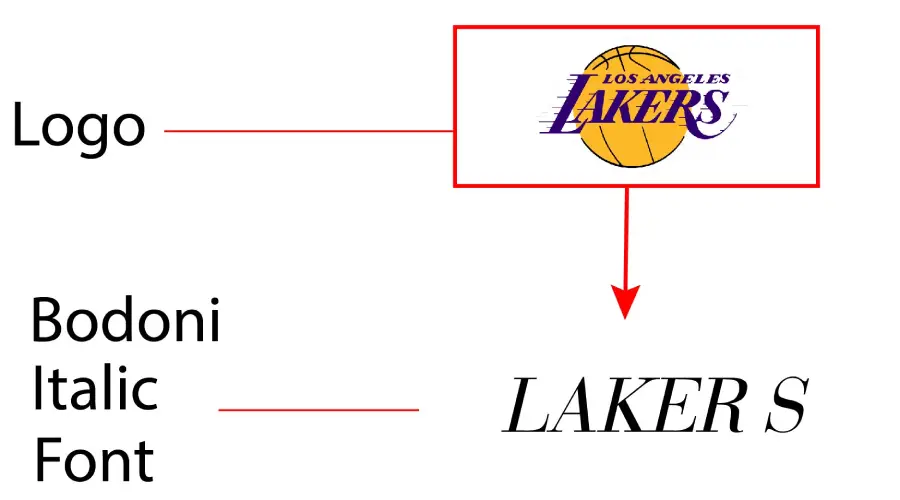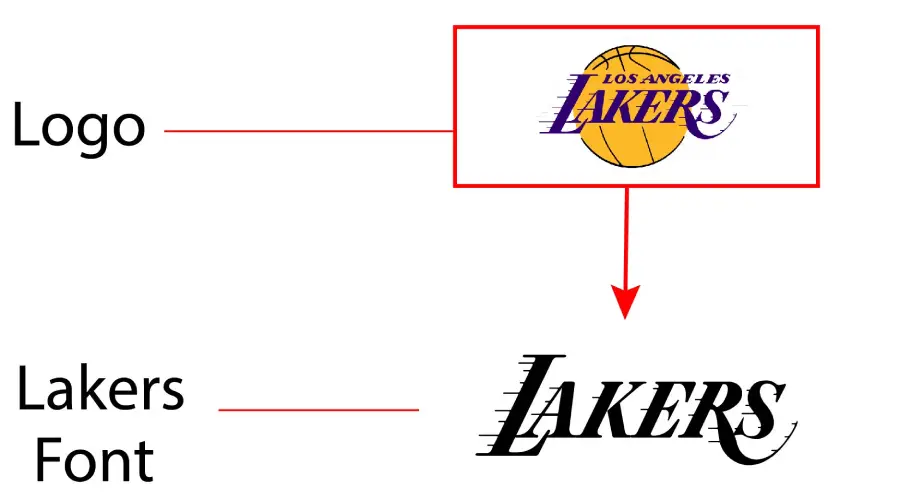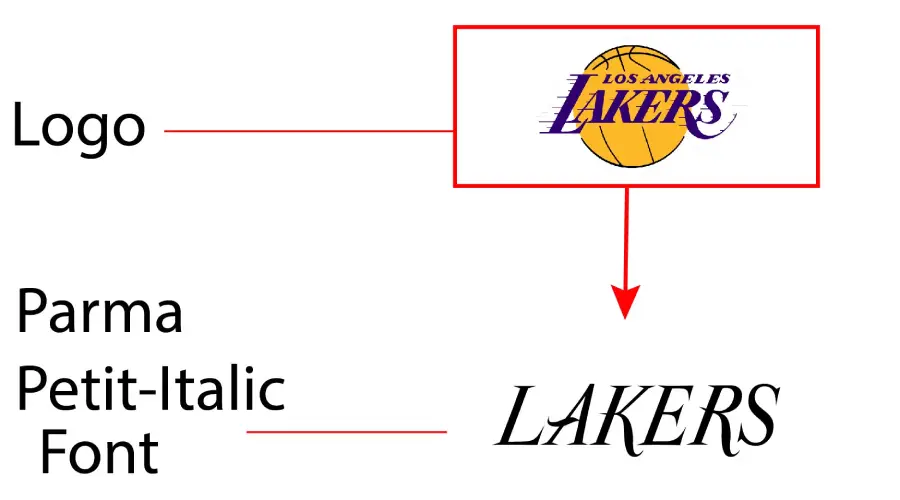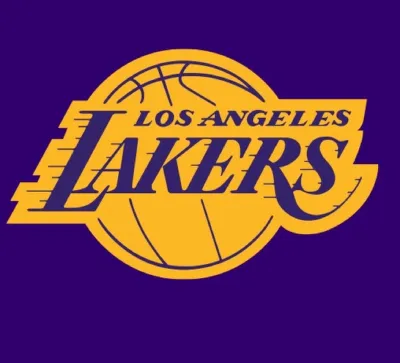
Lakers Font
The iconic Los Angeles Lakers font, closely associated with one of the most successful and renowned teams in the NBA, draws its inspiration from a specific typographic style.
The Lakers’ logotype resembles Bodoni Italic font, a creation of Gerald Giampa.
Lakers logo vs Bodoni Italic Font Similarity
This particular style of lettering, with its elegant and classic serif characteristics, encapsulates the grandeur and prestige of the Lakers as a franchise​​​​​​.
For those looking to emulate the Lakers’ font style, there are options available. While the original custom-made Lakers font might not be accessible for public use, there are alternatives.
Lakers logo vs Lakers Font Similarity
Parma Petit Italic SC Font vs Lakers logo
Additionally, there is another free alternative font available called Parma Petit SC Italic font designed by Manfred Klein can be used in both personal and commercial projects, offering a similar aesthetic to the Lakers’ font.
In summary, the Los Angeles Lakers font, inspired by Bodoni Italic, represents the grandeur of the franchise. While the original font is not publicly available, alternatives like “Lakers Font” and “Parma Petit SC Italic” offer similar styles free for personal and commercial use.